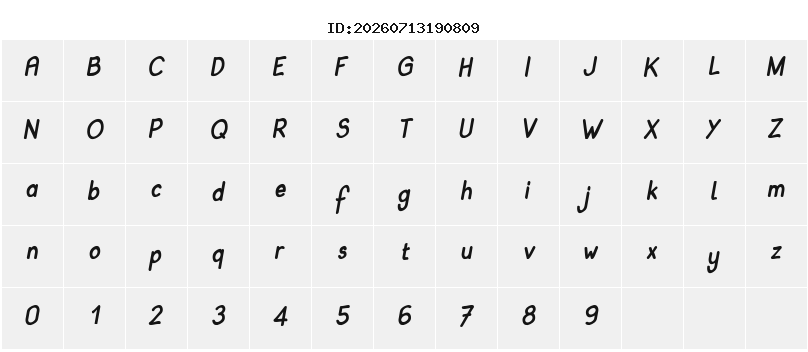
Babiole Preview
• Font Name: Babiole
• Font Style: Italique
• Font ID: Fontographer 4.7 Babiole Italique
• Full Font Name: Babiole Italique
• PostScript Name: BabioleItalique
About Babiole.ttf
Babiole.ttf is a modern, elegant sans-serif font designed for ultimate readability and visual harmony. Perfect for branding, headlines, web design, and print materials.